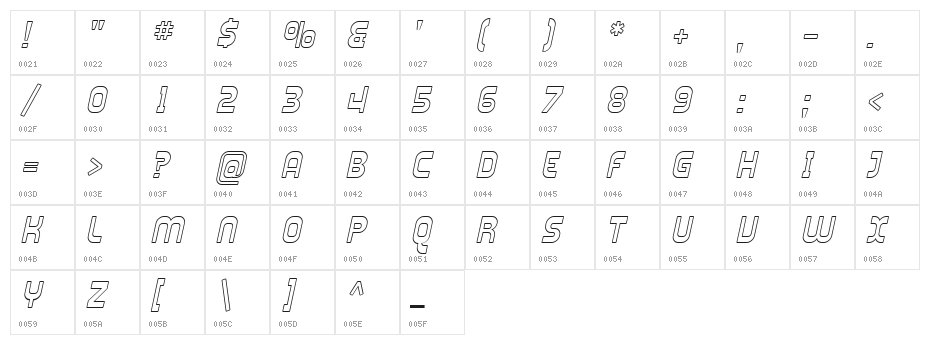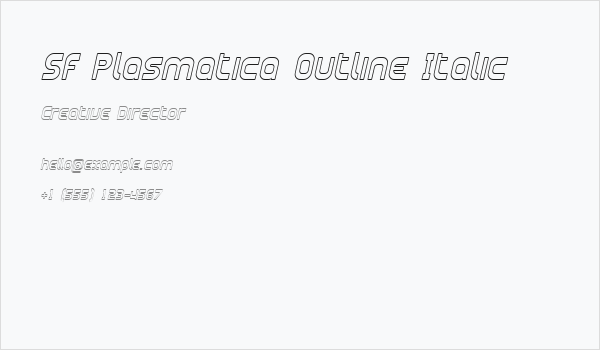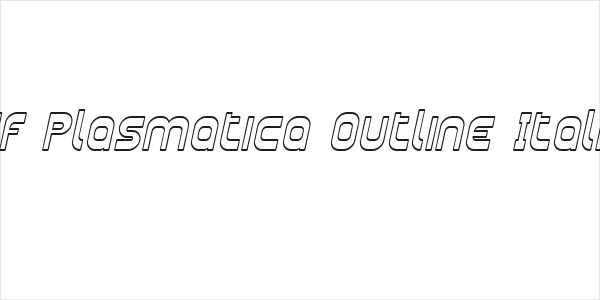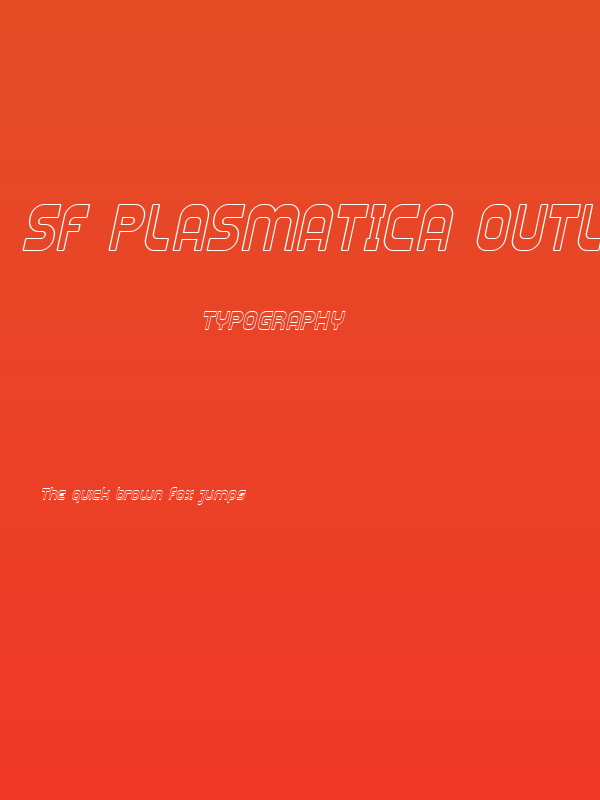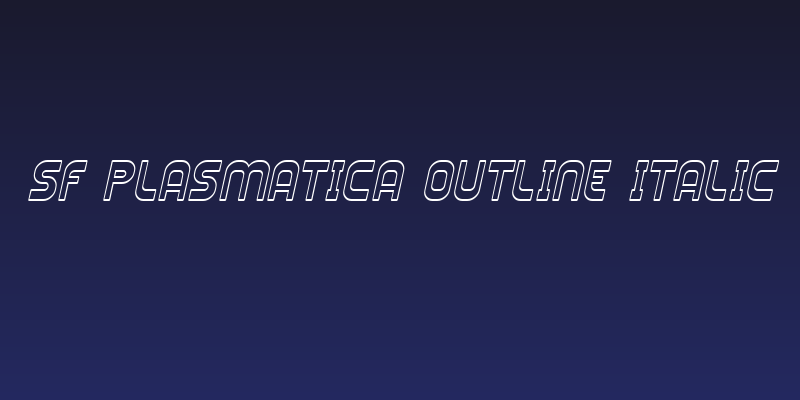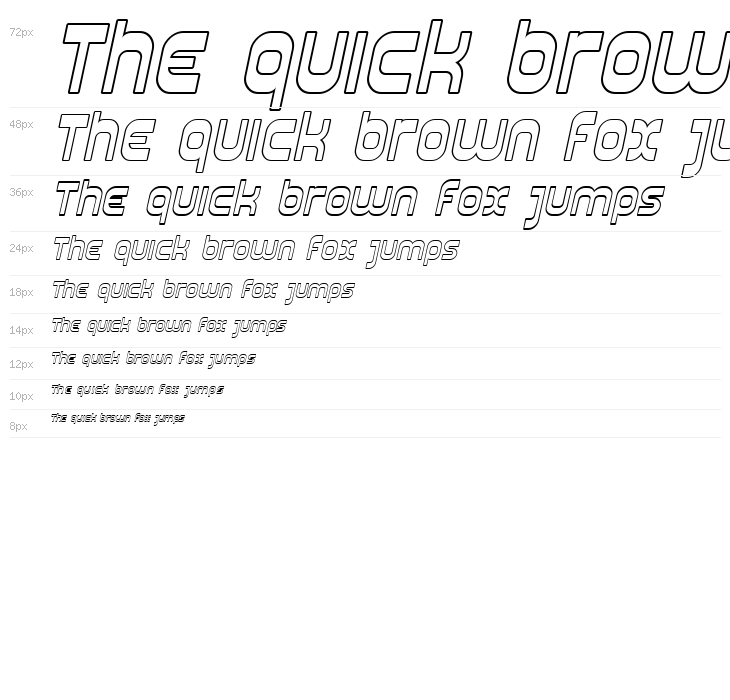
SF Plasmatica Outline Italic Font
SF Plasmatica Outline Italic Description
This font features a futuristic and sleek outline style, characterized by its italicized form. The letters are designed with a consistent stroke width, creating a uniform appearance across all characters. The uppercase and lowercase letters maintain a geometric structure, with smooth curves and sharp angles that give a modern and dynamic feel. The numerals and special characters follow the same design principles, ensuring a cohesive look throughout. The font's outline nature makes it ideal for creating eye-catching designs that require a touch of modernity and sophistication.
| Proposed Projects | Ideal for sci-fi themed designs, modern branding, digital artwork, and tech-related projects. |